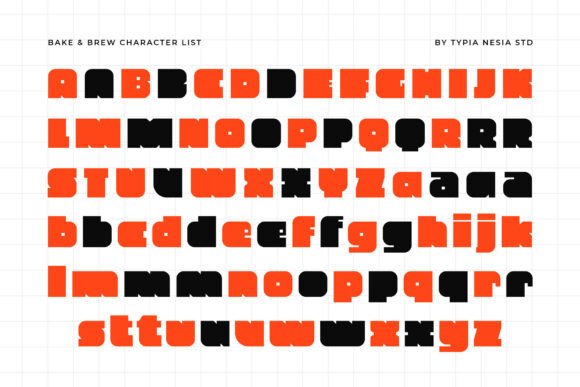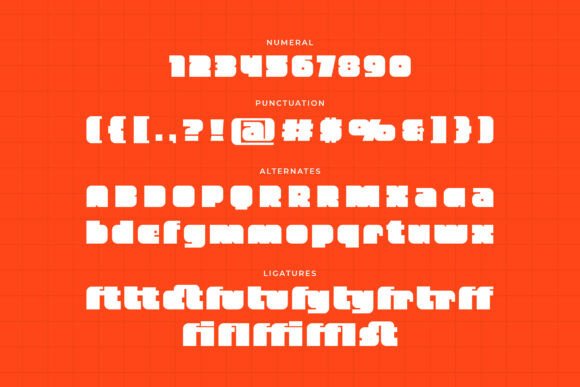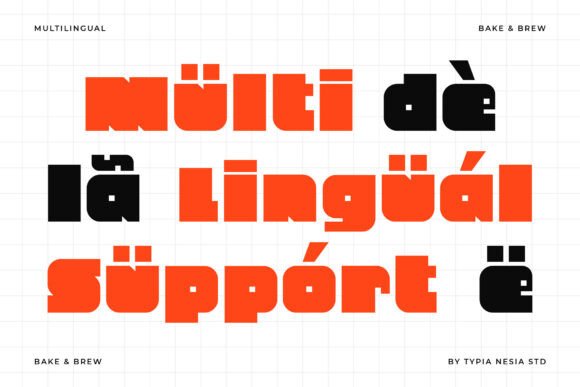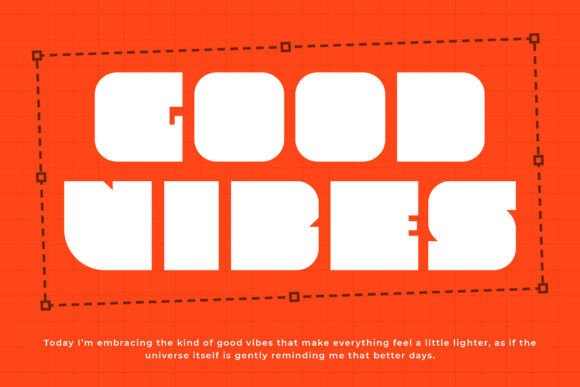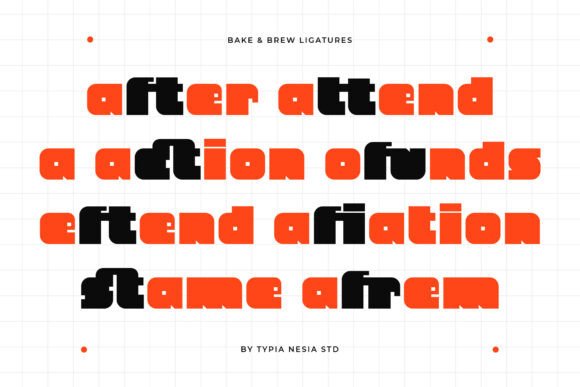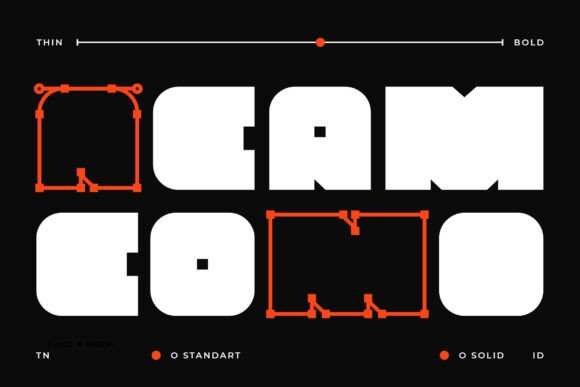
Bake & Brew Font: The Ultimate Modern Bold Chunky Sans for Playful & Rounded Logos
Are you a designer or crafter looking for a font that can elevate your branding and add a touch of retro-modern visual identity to your projects? Look no further than Bake & Brew, a modern bold solid sans font that’s perfect for creating striking visuals with a playful and professional personality.
What is Bake & Brew Font?
Bake & Brew is a chunky rounded font that’s designed to make a statement. With its solid forms and smooth rounded edges, this typeface is perfect for logos, bakery branding, social media graphics, coffee shop identities, retro-inspired posters, vintage packaging designs, bold headline artwork, and any project that requires a touch of retro-modern visual identity.
Key Features of Bake & Brew Font
- Modern Bold Solid Sans: Bake & Brew is a modern bold solid sans font that’s crafted with a chunky rounded shape and a distinctly playful yet professional personality.
- Creative Ligatures: This font comes with creative ligatures that ensure your typography feels custom-made and full of charm.
- Expressive Character Alternates: With expressive character alternates, you can add a touch of personality to your text and make it stand out.
- Perfect for Logos and Branding: Bake & Brew is perfect for logos, bakery branding, social media graphics, coffee shop identities, and any project that requires a bold and modern typeface.
Why Choose Bake & Brew Font?
There are many reasons why designers and crafters should choose Bake & Brew font for their projects. Here are a few:
- Unique and Playful Personality: Bake & Brew has a distinctly playful yet professional personality that sets it apart from other fonts.
- Retro-Modern Visual Identity: This font is perfect for projects that require a touch of retro-modern visual identity, making it ideal for designers who want to create striking visuals.
- Versatile: Bake & Brew is a versatile font that can be used for a wide range of projects, from logos and branding to social media graphics and posters.
- Easy to Read: Despite its chunky and bold design, Bake & Brew is easy to read, making it perfect for headlines and titles.
How to Use Bake & Brew Font?
Using Bake & Brew font is easy. Here are a few tips to get you started:
- Logos and Branding: Use Bake & Brew font to create bold and modern logos and branding for your clients or business.
- Social Media Graphics: This font is perfect for social media graphics, including Facebook posts, Instagram stories, and Twitter headers.
- Posters and Flyers: Use Bake & Brew font to create eye-catching posters and flyers that grab attention.
- Packaging Design: This font is perfect for packaging design, including labels, tags, and product packaging.
In conclusion, Bake & Brew font is a modern bold chunky sans font that’s perfect for designers and crafters who want to add a touch of retro-modern visual identity to their projects. With its unique and playful personality, creative ligatures, and expressive character alternates, this font is sure to elevate your branding and make your visuals stand out. So why wait? Download Bake & Brew font today and start creating standout visuals with bold, modern charm!